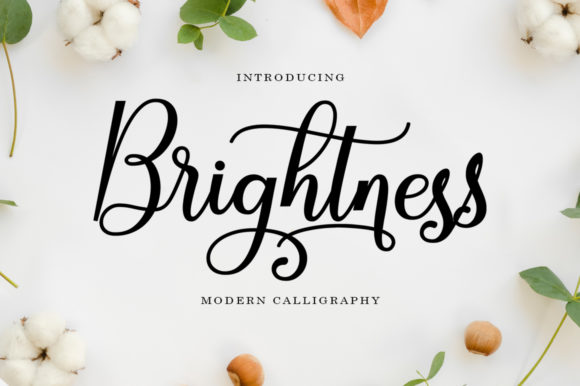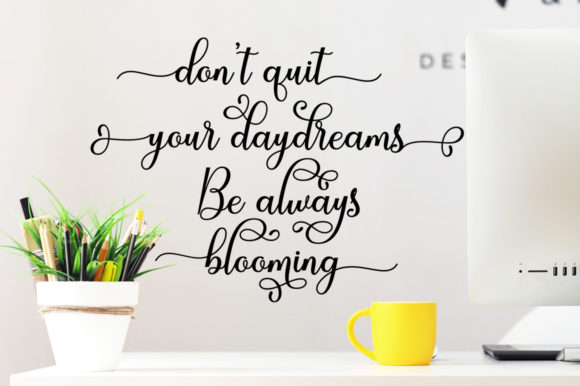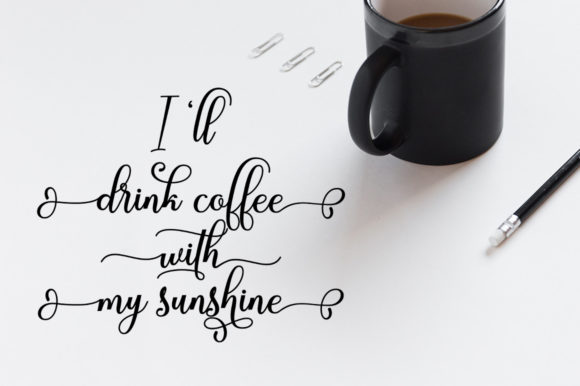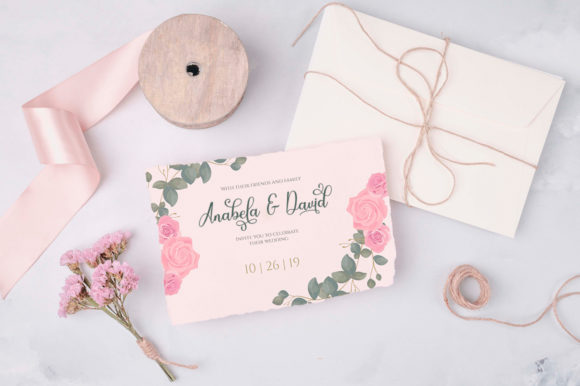
About Brightness Font
Brightness is a divine and graceful handwritten font, designed to add a touch of sophistication and charm to a wide array of design projects. With its flowing elegance and unique flourishes, this font is a true gem in the realm of handwritten typography. Its PUA encoding unlocks a treasure trove of artistic possibilities, allowing you to effortlessly access a plethora of glyphs and swashes to enhance your creative endeavors.
At first glance, Brightness mesmerizes with its exquisite letterforms, exuding an air of refinement and beauty. Its varying baseline creates a natural and harmonious rhythm, ensuring a seamless and enchanting flow of text. The smooth lines and delicate curves further accentuate the font’s elegance, making it an ideal choice for projects that demand a touch of sophistication and grace.
One of Brightness’ remarkable features lies in its stunning alternates and gorgeous glyphs. With its PUA encoding, you can effortlessly explore a myriad of artistic options, elevating your designs to new heights. Whether it’s adding a swirly flourish to a wedding invitation or a decorative element to a logo, Brightness allows you to infuse your creations with a sense of artistry and individuality.
Speaking of weddings, Brightness transforms wedding invitations and stationery into masterpieces of elegance. Its refined and flowing style effortlessly captures the romance and joy of the occasion, setting the perfect tone for a truly memorable event. As guests receive these exquisite invitations, they are sure to be captivated by the font’s timeless charm and grace.
Beyond wedding-related designs, Brightness shines brightly in various other creative pursuits. From creating captivating social media posts to designing beautiful stationary art, this font lends an air of sophistication and beauty to every project. Whether it’s crafting heartfelt quotes or sharing artistic illustrations, Brightness adds an element of enchantment that resonates with viewers.
As an essential part of branding, Brightness elevates logos and graphics with its elegant touch. Its versatility allows it to adapt seamlessly to various industries, from fashion and beauty to luxury and lifestyle. When paired with other design elements, this font forms a cohesive and captivating brand identity, leaving a lasting impression on clients and customers alike.
In conclusion, Brightness is an elegant and flowing handwritten font that exudes sophistication and charm. Its PUA encoding empowers you to explore a world of stunning alternates and gorgeous glyphs, offering endless creative possibilities. Whether it’s wedding invitations, stationary art, social media posts, or branding projects, Brightness elevates your designs to extraordinary levels of elegance and allure. Fall in love with its timeless beauty and versatility, and let it be the guiding light in your creative journey, illuminating your path to enchanting and captivating designs.